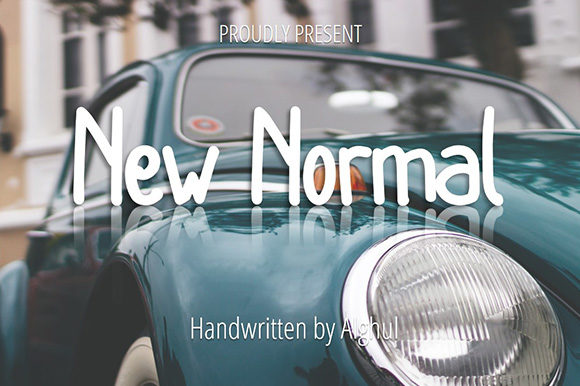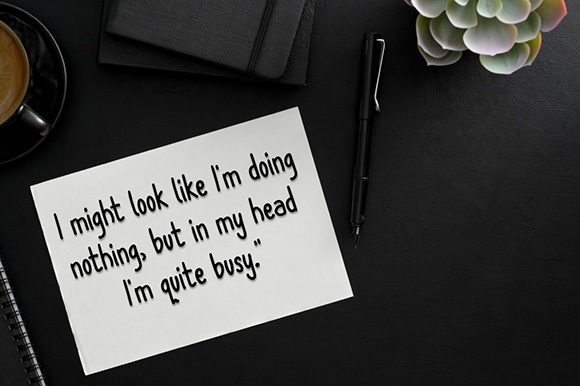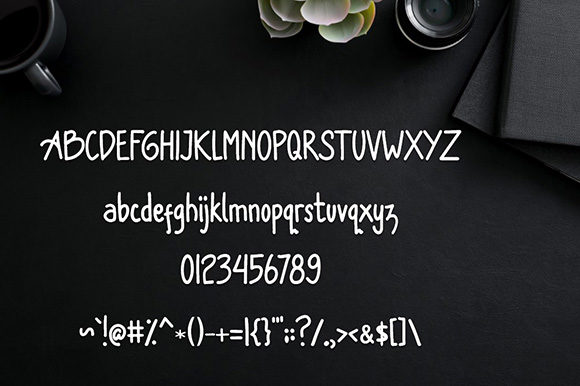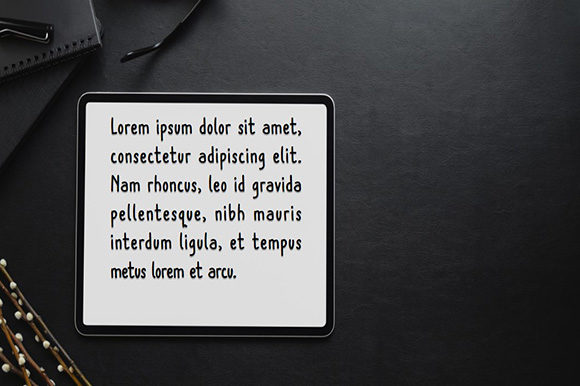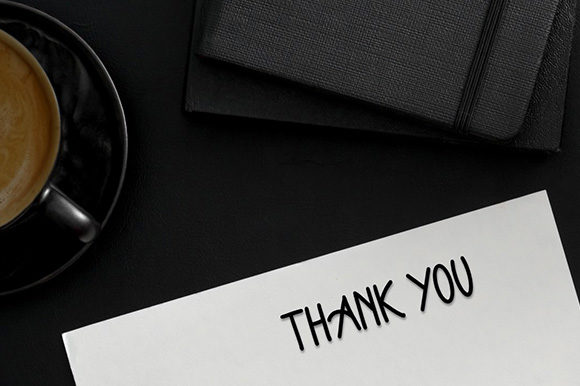
Personal Use Free New Normal 0 155 FacebookTwitterPinterestWhatsApp 1 of 5 About New Normal Font New Normal is a sweet and friendly handwritten font. Its natural and unique style makes it incredibly fitting to a large pool of designs. DOWNLOAD NOW